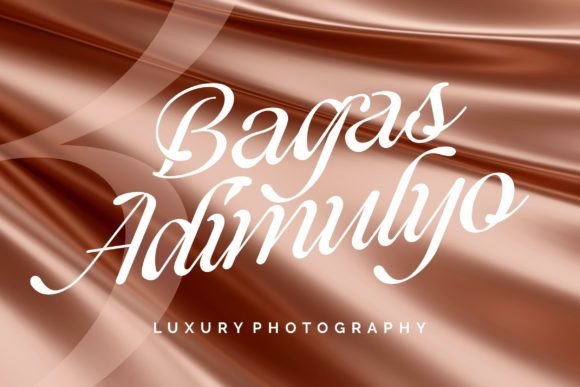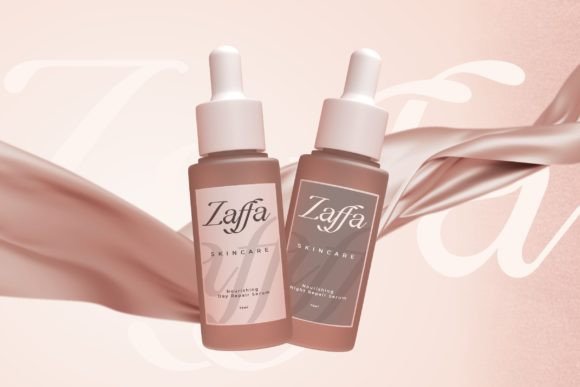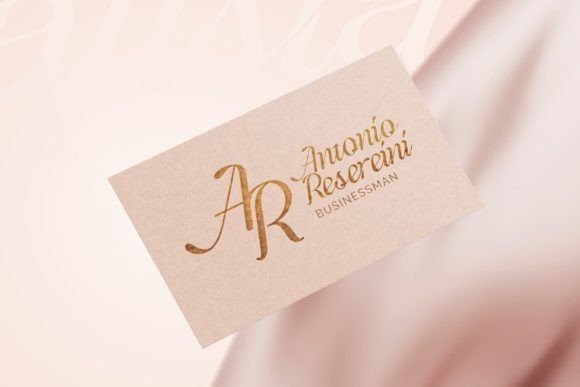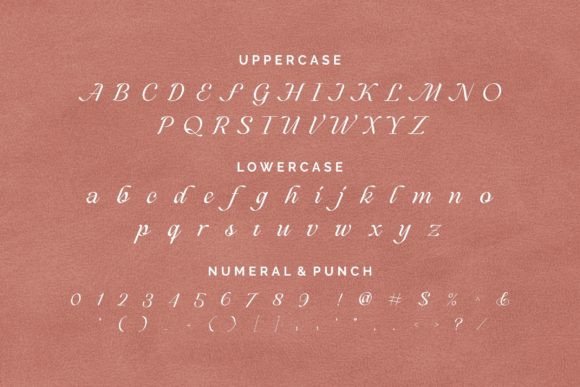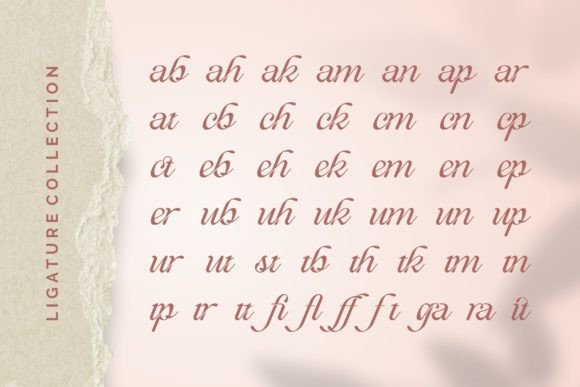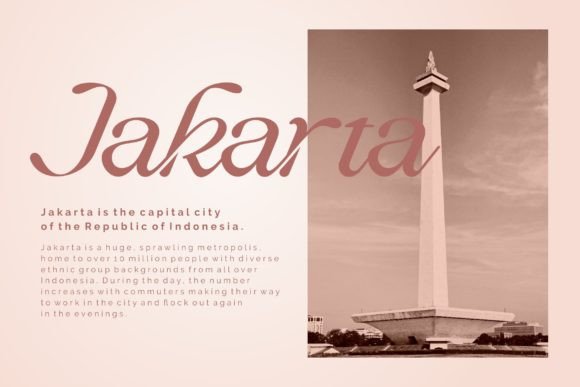
Dafista Font: Elevate Your Designs with Elegance and Sophistication
In the world of typography, fonts play a crucial role in conveying the tone and personality of a design. For designers and crafters seeking to add a touch of elegance and sophistication to their work, the Dafista Font is an excellent choice. This beautiful script font is designed to bring a sense of luxury and refinement to any project, making it perfect for creating stunning logos, branding materials, and more.
What Makes Dafista Font Stand Out?
Dafista is an elegant and classic script font that boasts unique ligatures, setting it apart from other fonts in its category. Its distinctive characters and swashes can be used to create classy, elegant, and truly unique logos that capture the essence of a brand. Whether you’re working on a high-end fashion brand, a luxury product, or a sophisticated service, Dafista Font provides the perfect typographic solution.
Key Features of Dafista Font
- Elegant and Classic Design: Dafista Font features a timeless design that exudes sophistication and refinement.
- Unique Ligatures: The font includes beautiful ligatures that add a touch of elegance to any text.
- High Versatility: The font can be used for a wide range of design projects, from logos and branding to packaging and advertising.
Benefits of Using Dafista Font
Using Dafista Font in your designs offers several benefits, including:
- Enhanced Visual Appeal: The font’s elegant design and unique ligatures can elevate the visual appeal of your designs, making them more engaging and memorable.
- Improved Brand Identity: Dafista Font can help create a strong brand identity that conveys luxury, sophistication, and refinement.
How to Use Dafista Font in Your Designs
Using Dafista Font in your designs is straightforward. Here are some tips to get you started:
- Pair it with Other Fonts: Dafista Font can be paired with other fonts to create a unique and harmonious typographic combination.
- Experiment with Swashes: The font’s swashes can add a touch of elegance to your designs. Experiment with different swashes to find the perfect fit.
- Adjust Font Size and Color: Adjust the font size and color to suit your design needs and ensure optimal readability.
Who Can Benefit from Dafista Font?
Dafista Font is an excellent choice for:
- Graphic Designers: Looking for a elegant and sophisticated font to add to their design arsenal.
- Crafters: Seeking to create beautiful and unique handmade products, such as cards, scrapbook pages, and other paper crafts.
- Branding and Marketing Professionals: Needing a font that can help create a strong brand identity and convey luxury and sophistication.
In conclusion, Dafista Font is a stunning script font that offers elegance, sophistication, and versatility. Its unique ligatures, PUA encoding, and high-end design make it an excellent choice for designers and crafters seeking to elevate their designs. Whether you’re working on a logo, branding materials, or other design projects, Dafista Font is sure to impress.